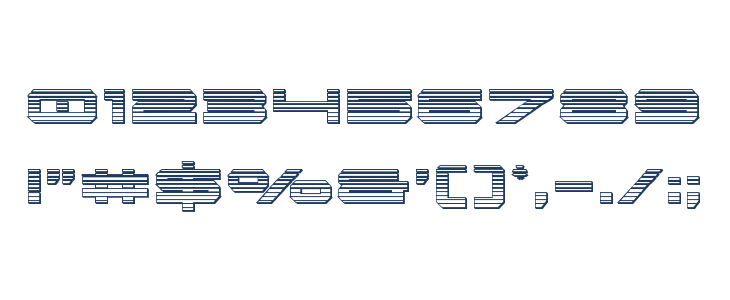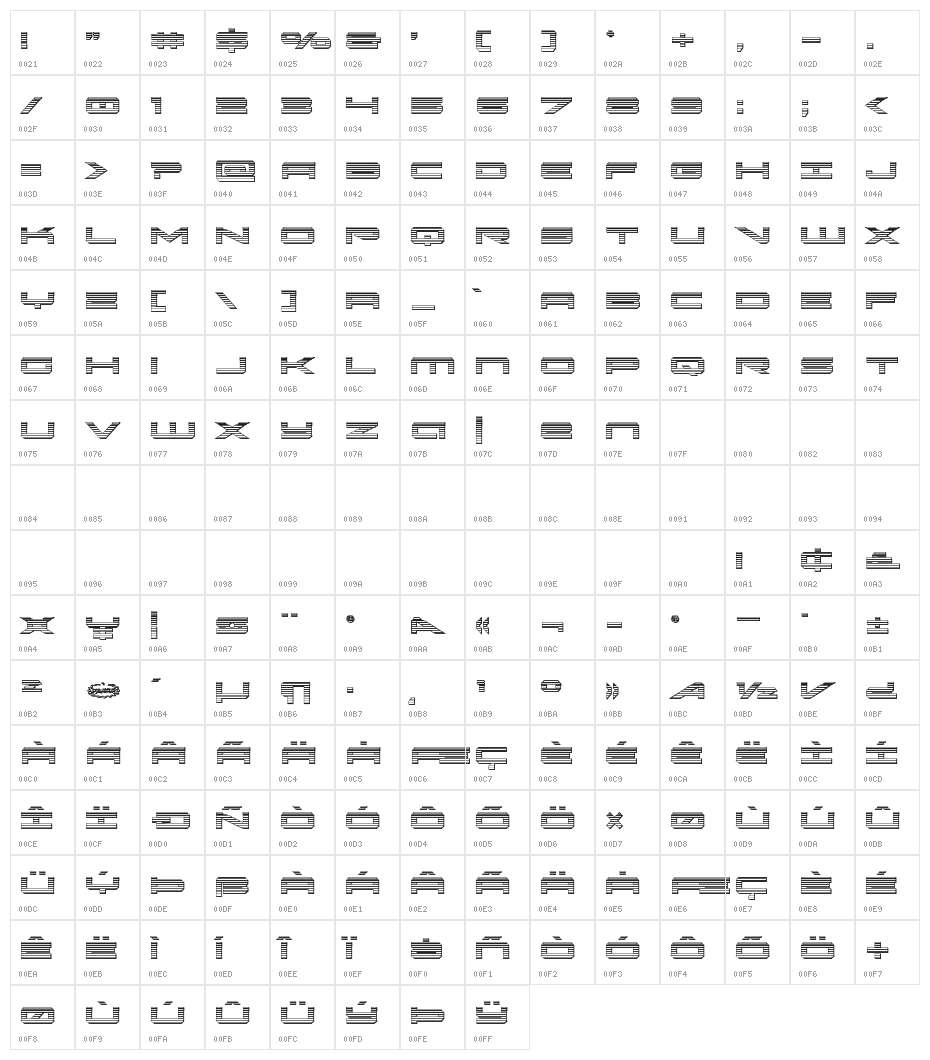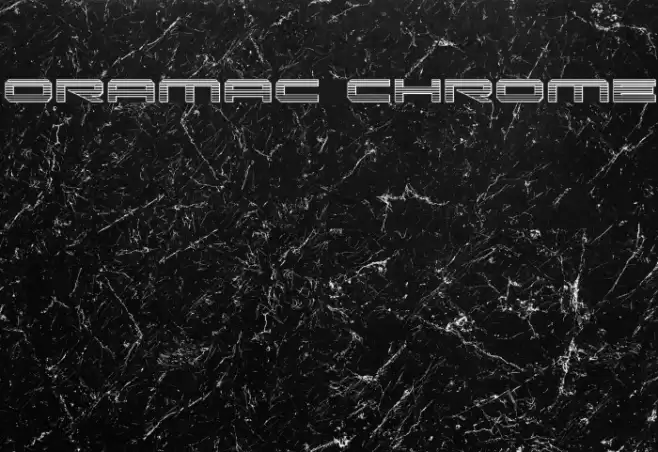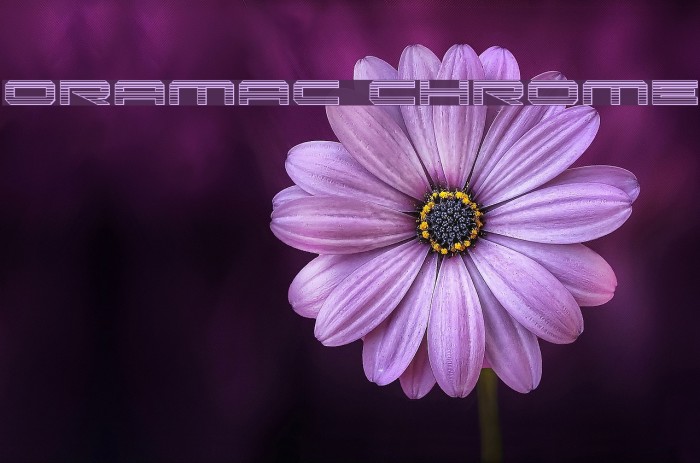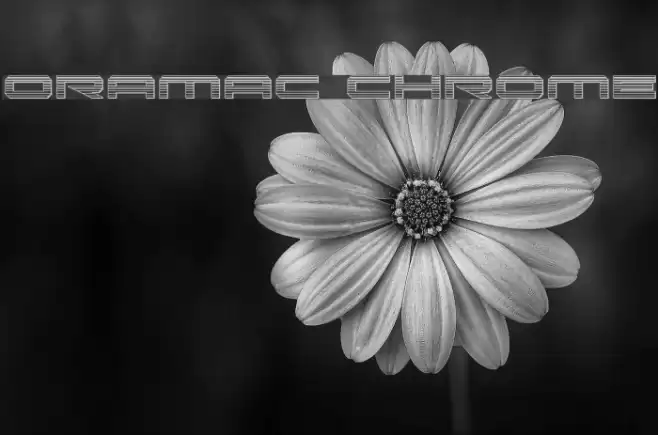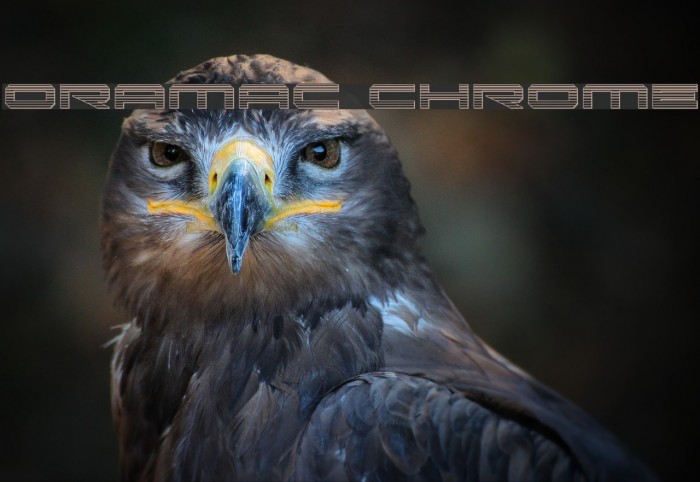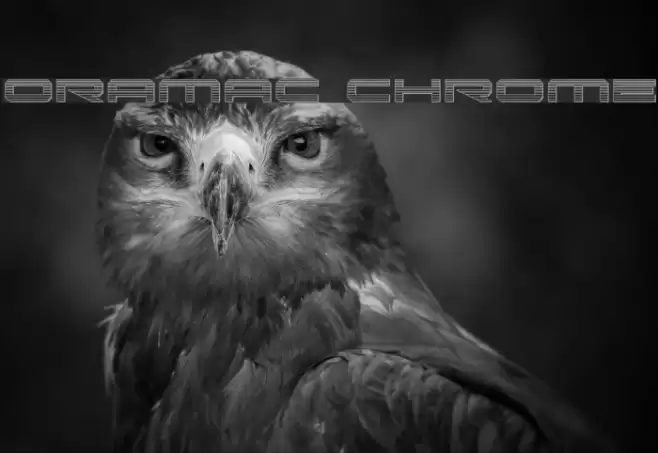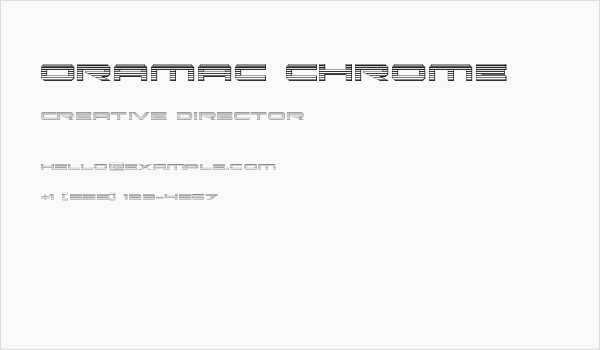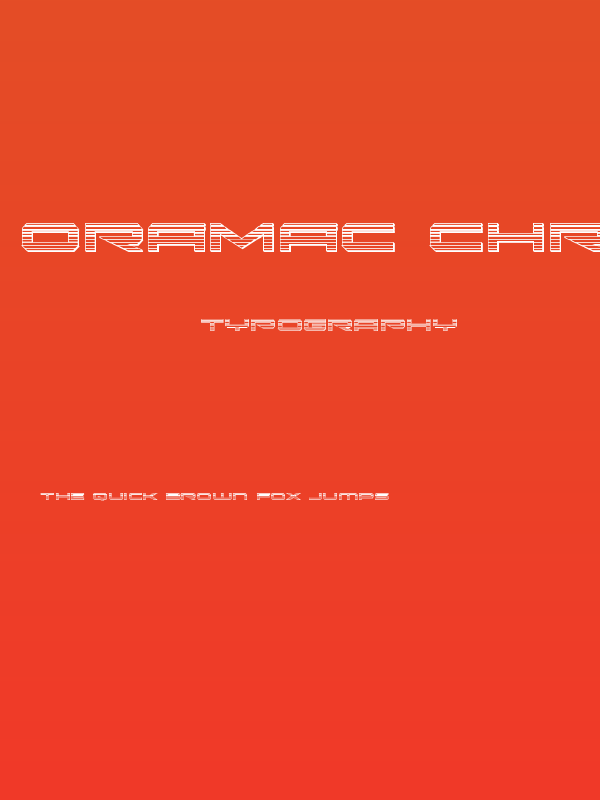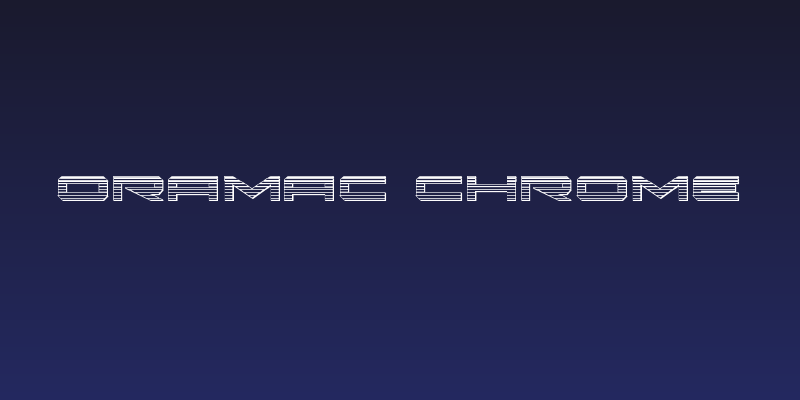
Oramac Chrome Font
Oramac Chrome Description
This font features a futuristic and industrial design, characterized by its multi-line, layered structure that creates a three-dimensional effect. The letters are constructed with parallel lines that give a sense of depth and movement, making it visually striking. The geometric shapes are consistent throughout, with sharp angles and clean lines that contribute to its modern aesthetic. The uppercase and lowercase letters maintain a uniform style, while the numerals and special characters are designed to complement the overall look. This font is ideal for projects that require a bold and innovative appearance.